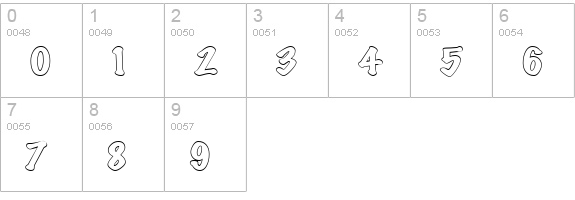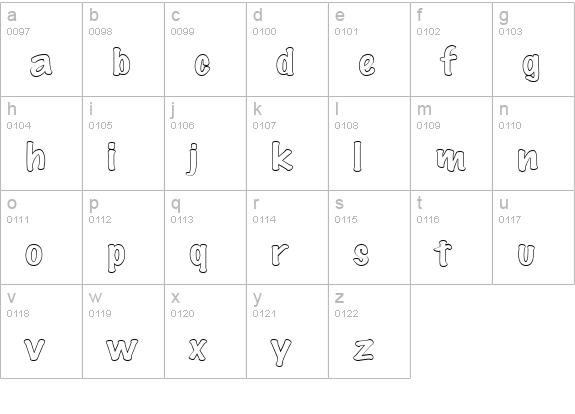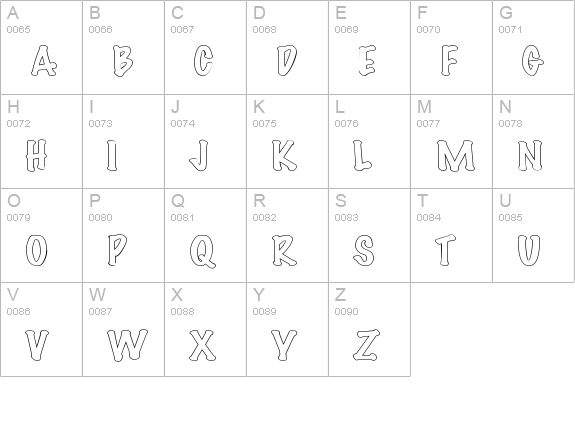
MarkerHollowExtended Normal Font Details
MarkerHollowExtended Normal is the standard, neutral variant in the MarkerHollowExtended typeface family \xE2\x80\x94 well suited to general body text, paragraphs, and standard typographic work.
MarkerHollowExtended Normal is a stunning and versatile font that adds a touch of creativity and uniqueness to any design project. With its bold and distinctive strokes, this font is perfect for grabbing attention and making a statement. Whether you're designing a logo, poster, or social media graphics, MarkerHollowExtended Normal will bring your ideas to life with its playful and energetic vibe. Not only does MarkerHollowExtended Normal offer a wide range of characters and glyphs, but it also comes in a variety of weights, allowing you to experiment and find the perfect fit for your project. From light and airy to bold and impactful, this font has it all. One of the best things about MarkerHollowExtended Normal is that it is freely available to download at FontsMarket.com. This means that you can enhance your designs without breaking the bank. Whether you're a professional designer or a hobbyist, this font is accessible to everyone, allowing you to create stunning visuals without any limitations. So why wait? Add a touch of creativity and originality to your designs with MarkerHollowExtended Normal. Download it for free at FontsMarket.com and let your imagination run wild.